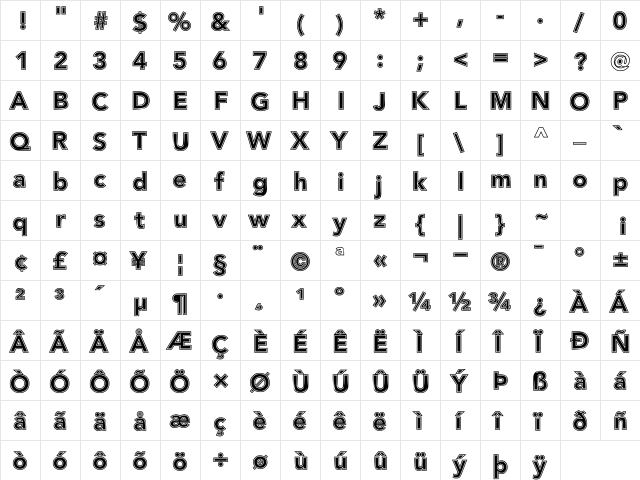
Avenir 95 Custom.Outerline Normal
Design Context for Avenir 95 Custom.Outerline Typeface
Avenir 95 Custom.Outerline offers clean, dependable letterforms without strong stylistic allegiance, making it a practical choice for designers who need flexibility.